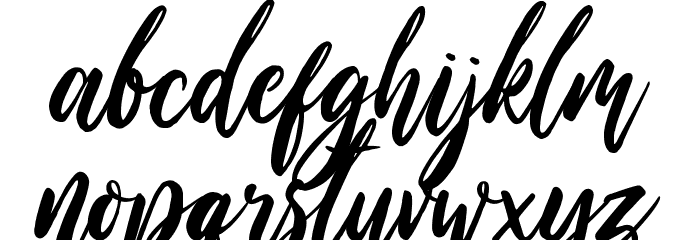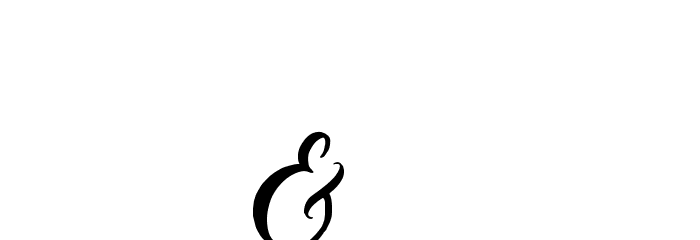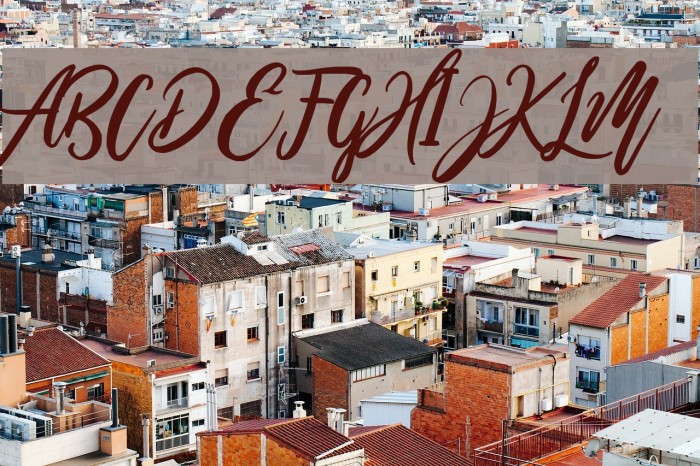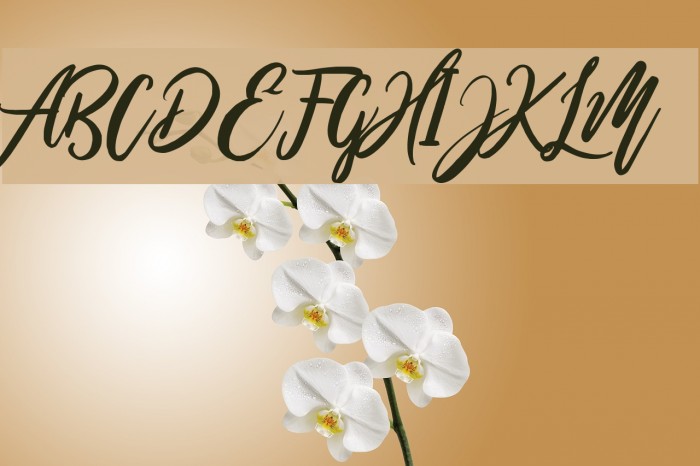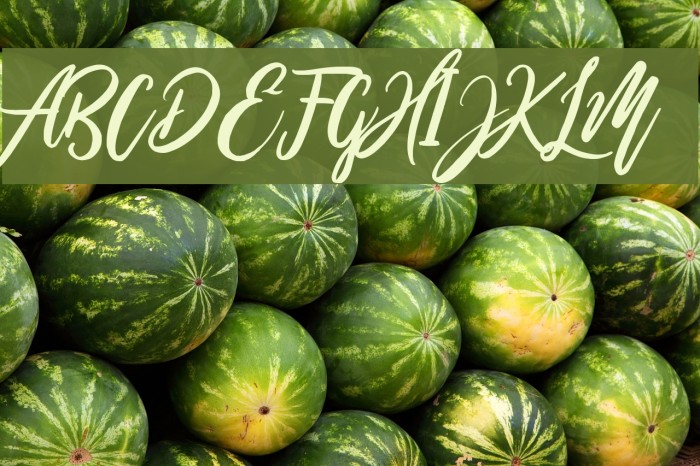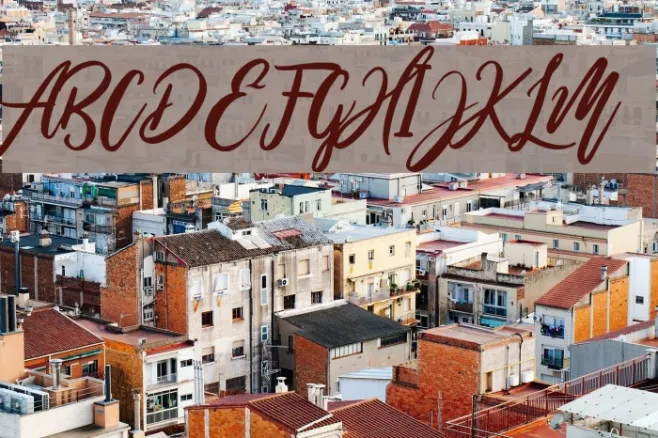
WildOnes Font
This font features a dynamic and expressive handwritten style, characterized by fluid, sweeping strokes and a lively, energetic appearance. The uppercase letters exhibit a bold and confident flair, with each character displaying unique flourishes and loops that add to its artistic charm. The lowercase letters maintain a consistent flow, enhancing readability while preserving the font's distinctive personality. The numbers and special characters are crafted with the same attention to detail, ensuring a cohesive look across all elements. This font's overall design exudes a sense of creativity and spontaneity, making it ideal for projects that require a personal touch.
A dynamic, expressive handwritten font with fluid strokes and artistic flair.
- Proposed Projects: Ideal for branding, invitations, greeting cards, and creative projects that require a personal, artistic touch.
- Use Case: Logos, Headlines, Invitations